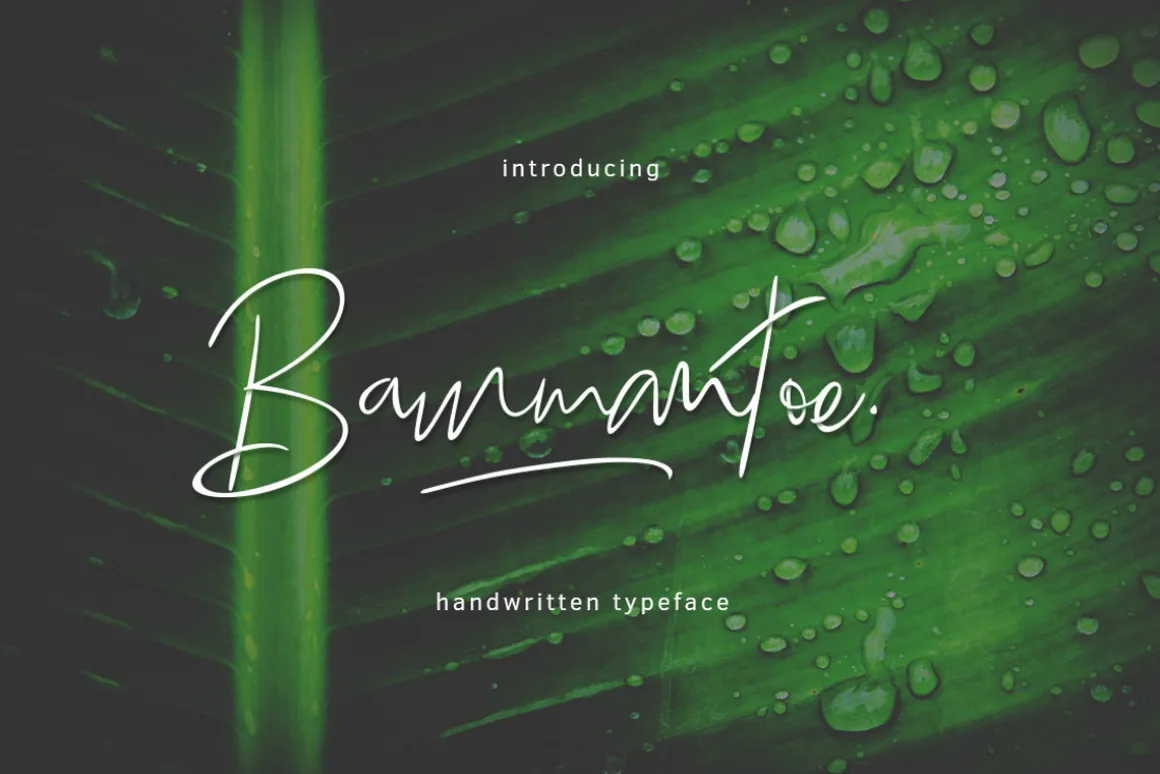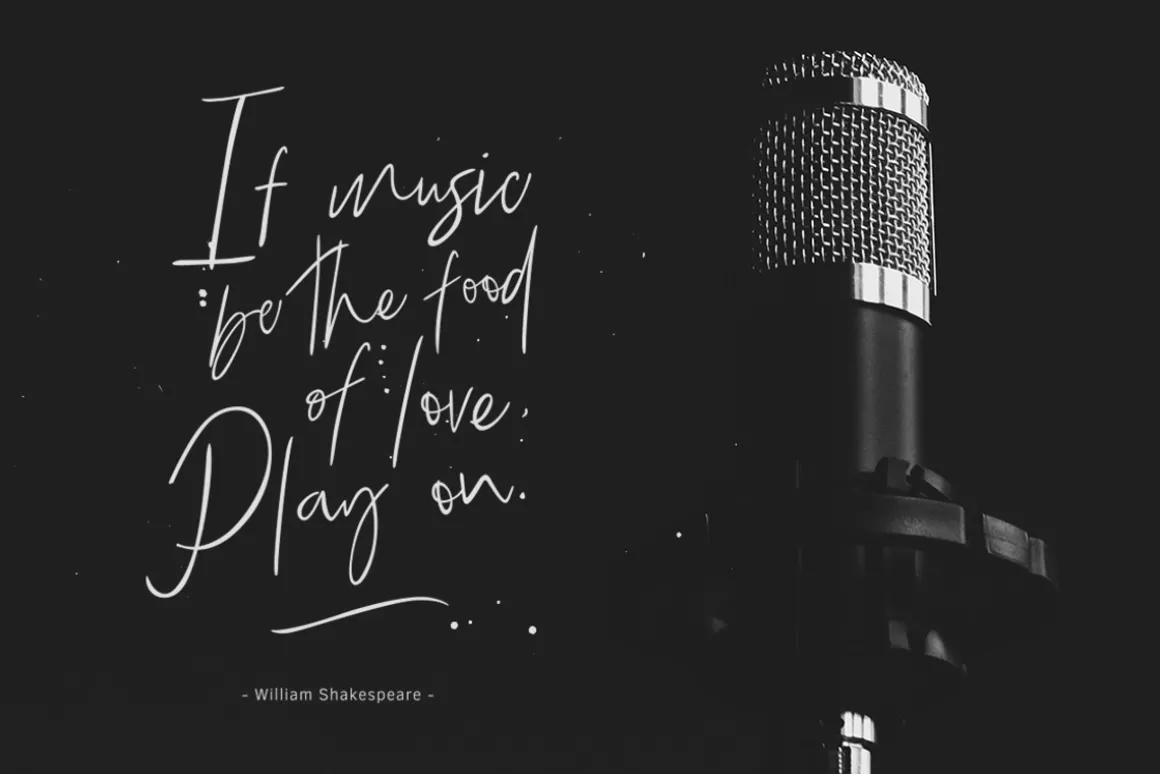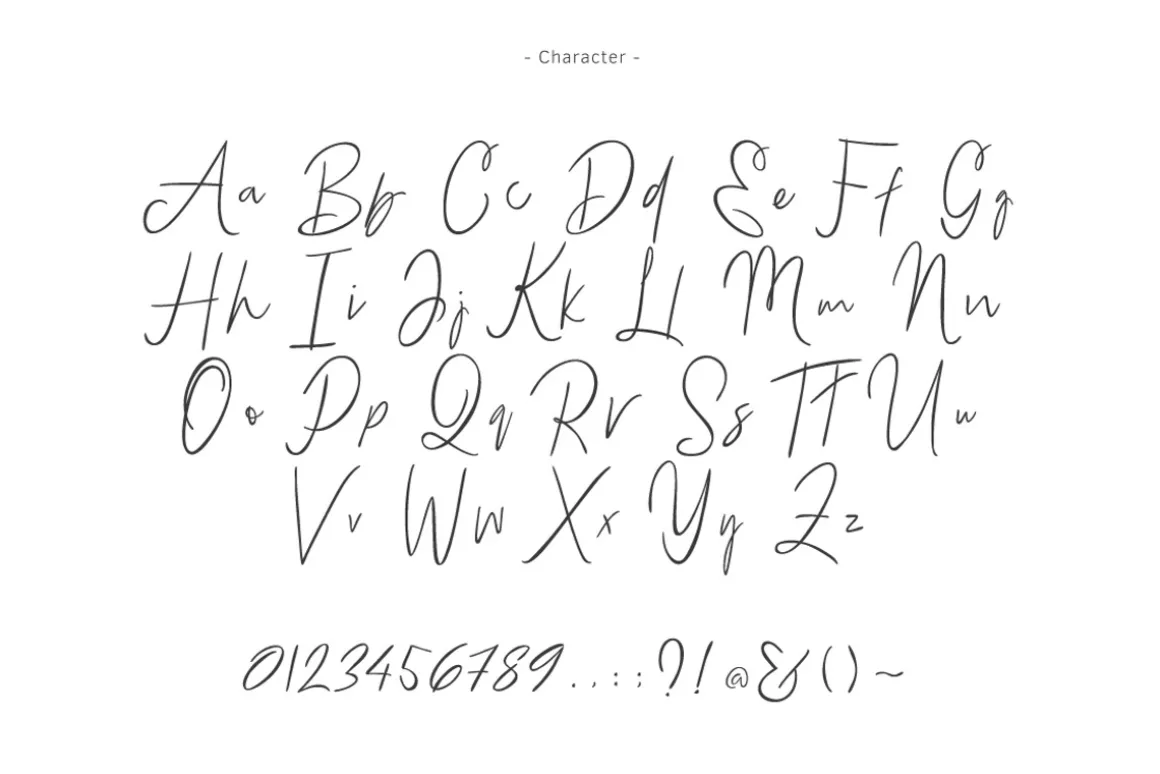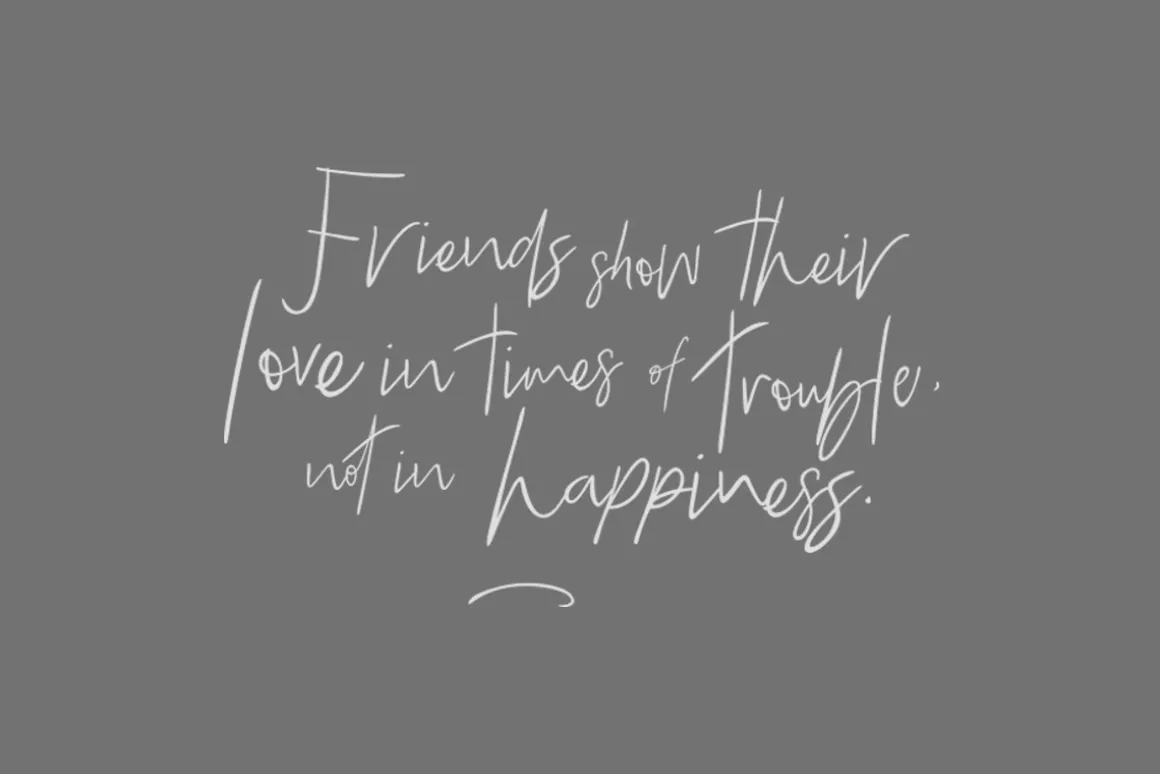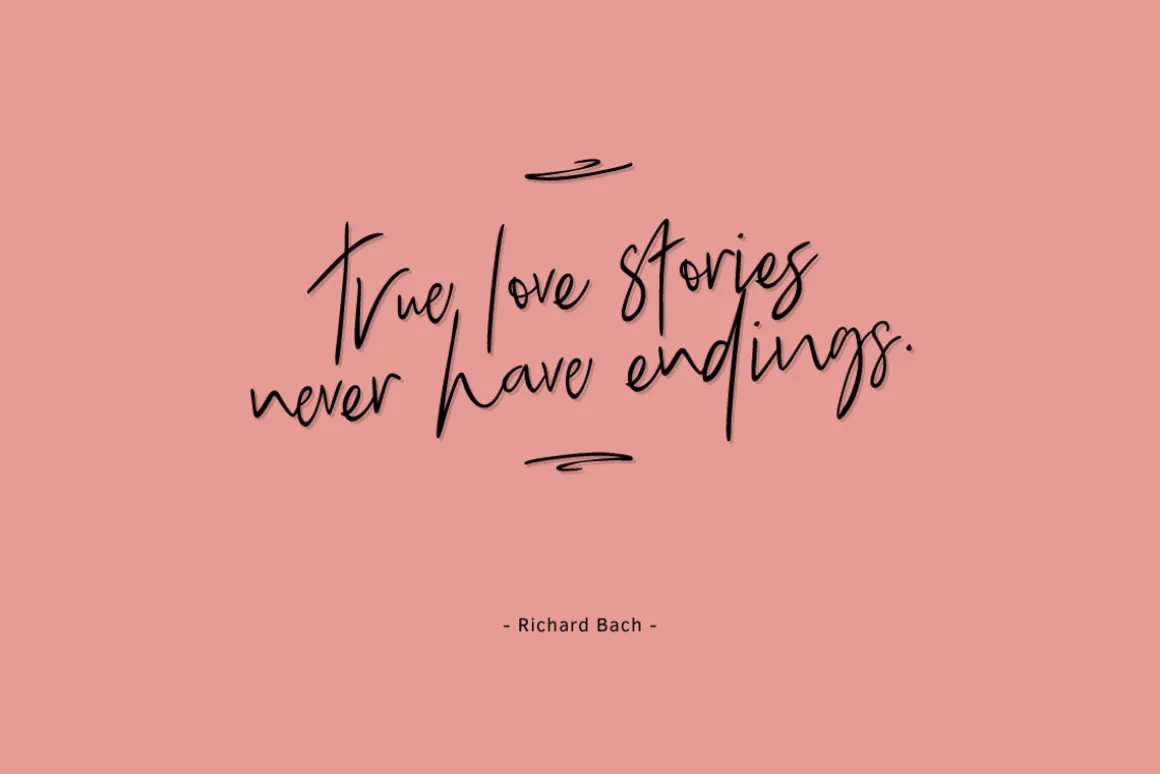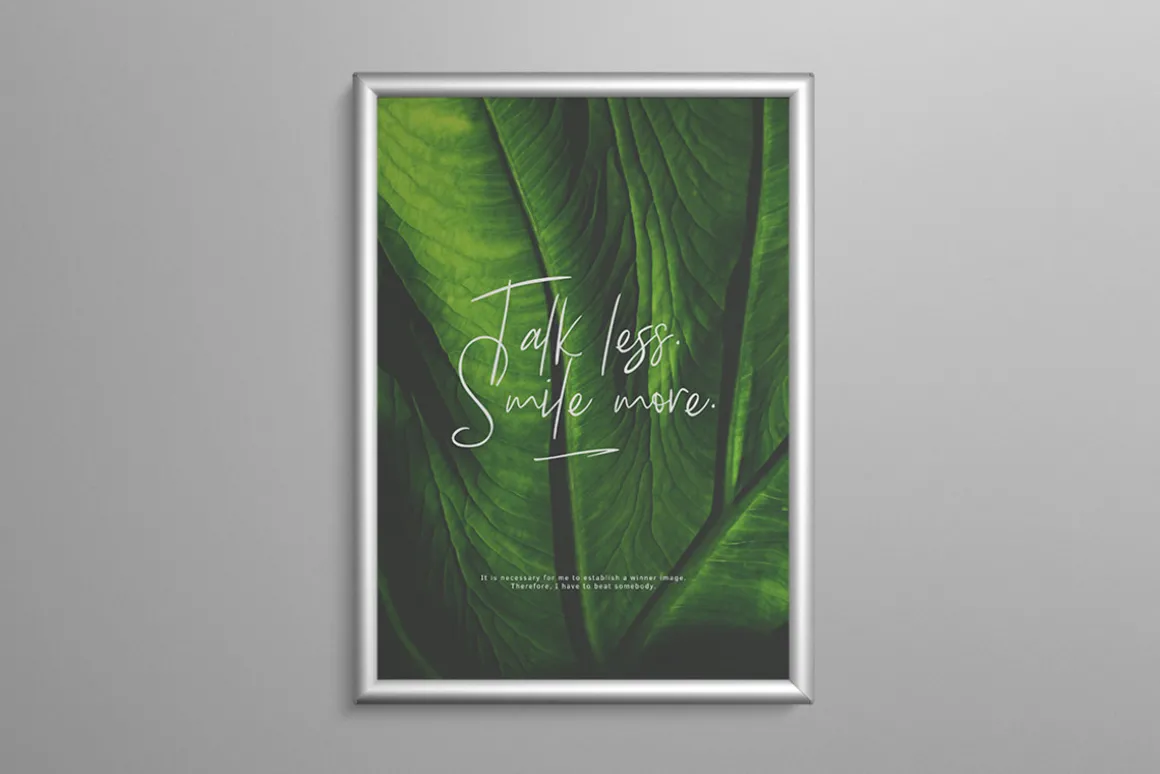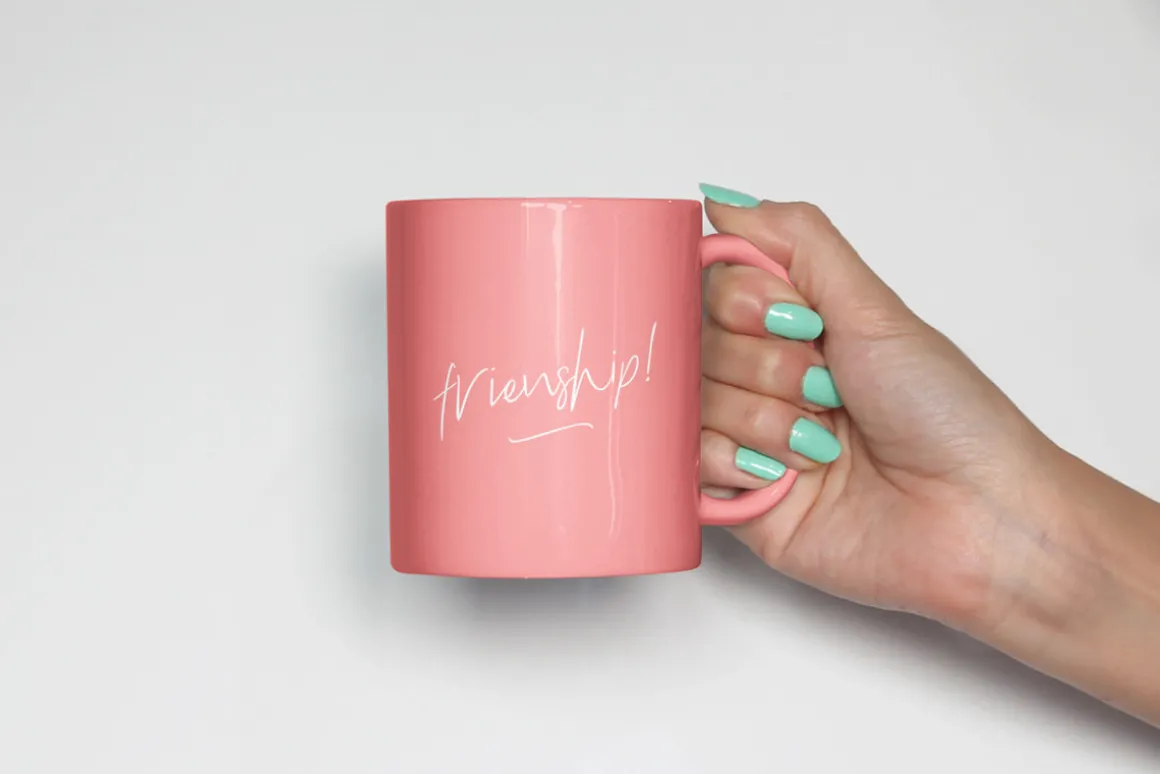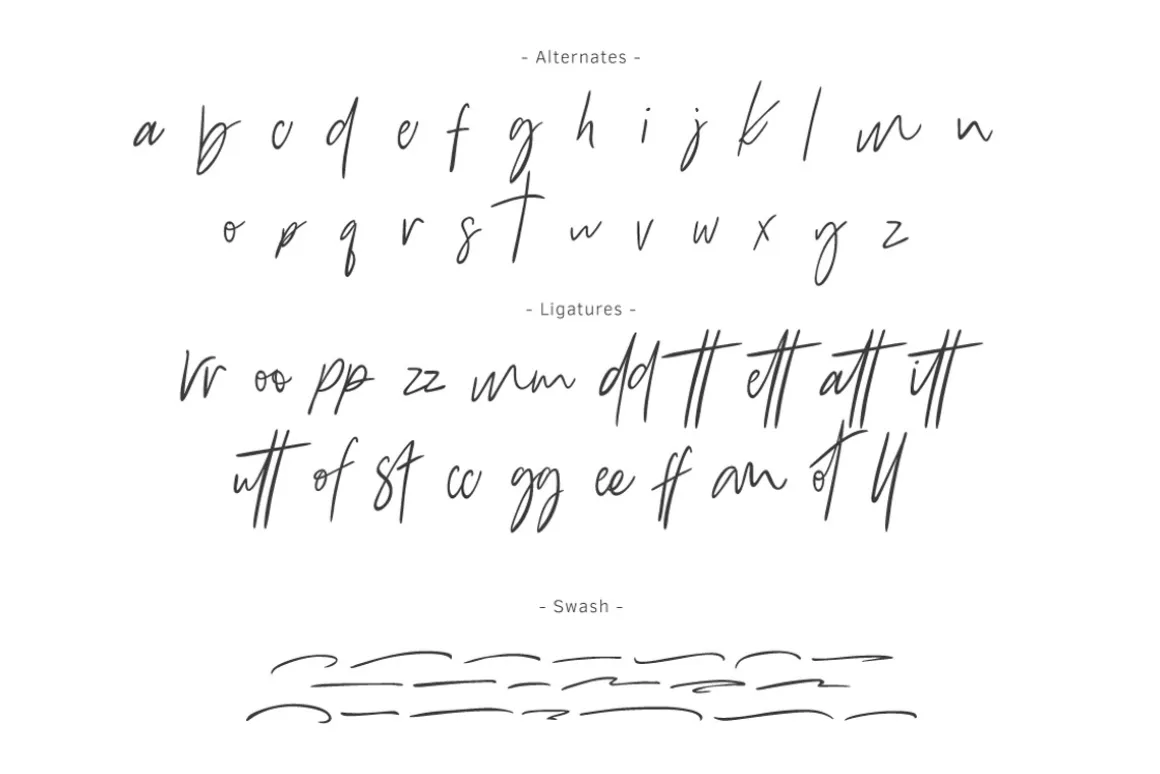
Introducing: Bammantoe Typeface is a handwritten font. The style of handwriting and irregular but still elegant, and you will enjoy to use this font style.
Bammantoe is perfect for branding projects, homeware designs, product packaging – or simply as a stylish text overlay to any background image.
Ligatures • Are also available for several lowercase characters (double-letters which flow more naturally). These are only accessible via software with opentype capability or a glyphs panel, e.g. Photoshop/Illustrator.